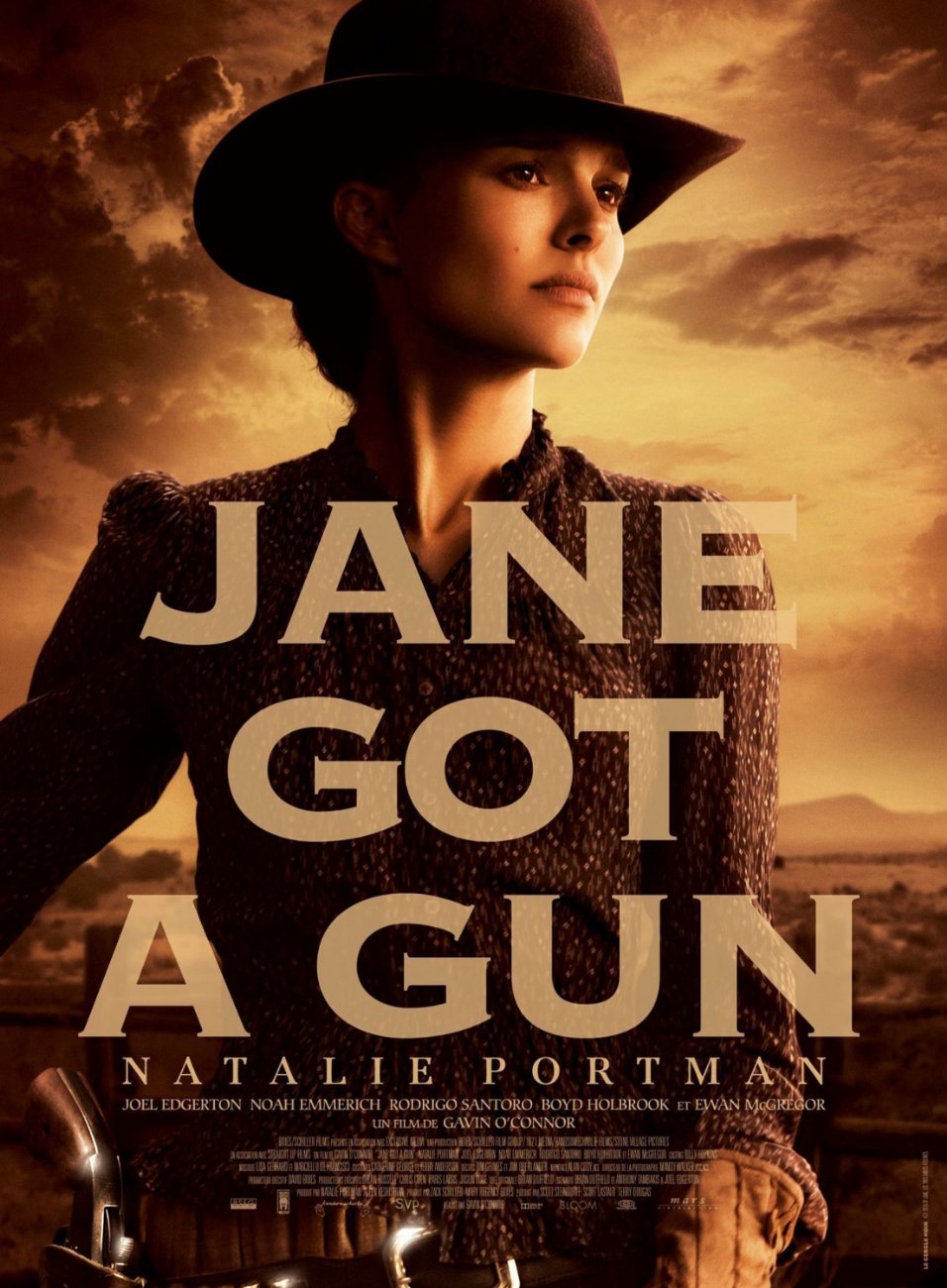
Jane Got a Gun Font
Fonts in UseJane Got a Gun is a 2015 Western film directed by Gavin O'Connor. The story follows Jane Hammond as she seeks the help of her ex-lover to defend her injured husband from a gang of outlaws.
The film title in the poster of "Jane Got a Gun" features the use of Copperplate Gothic, a glyphic serif typeface created by Frederic W. Goudy and released by American Type Founders (ATF) in 1901. You can preview and purchase the font here.